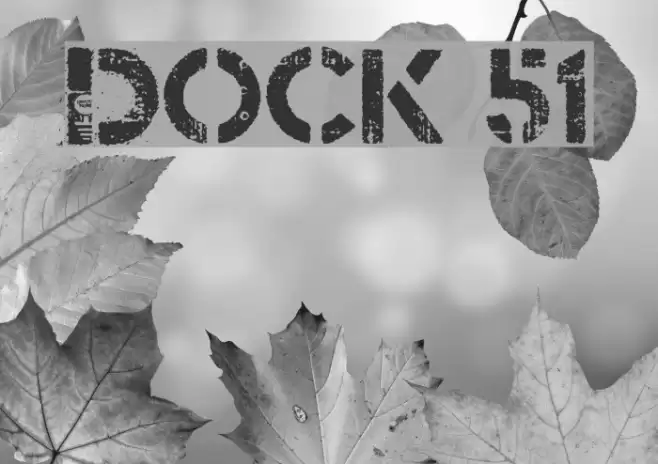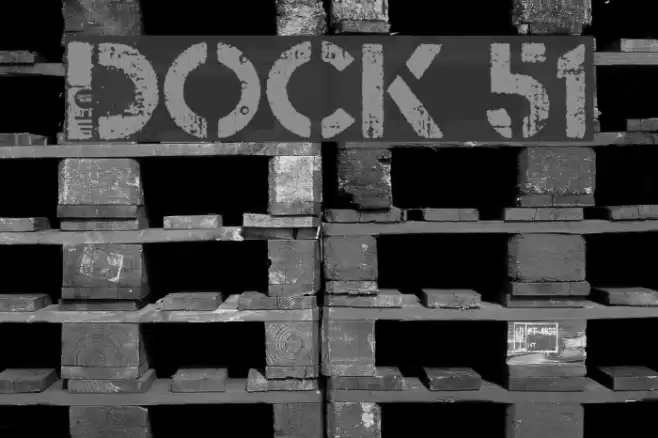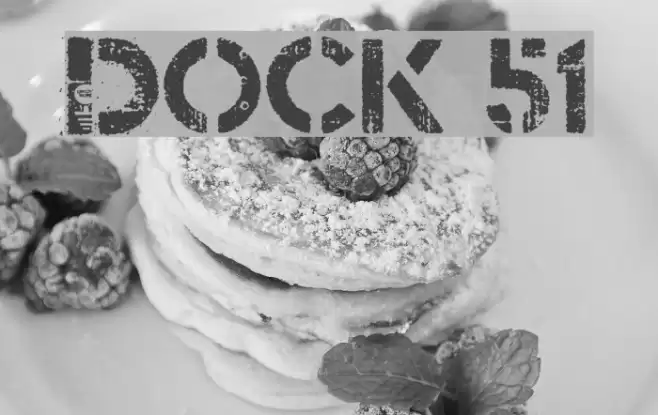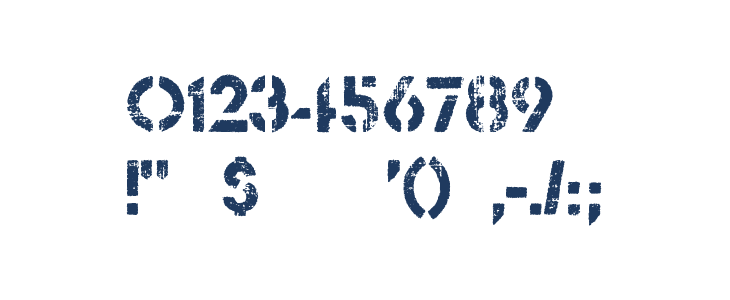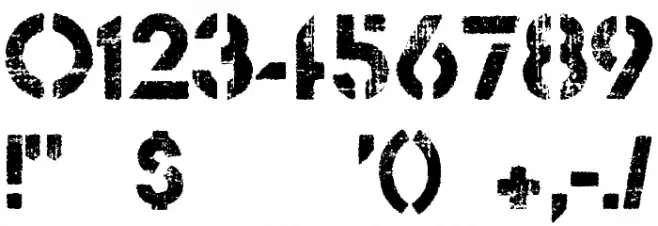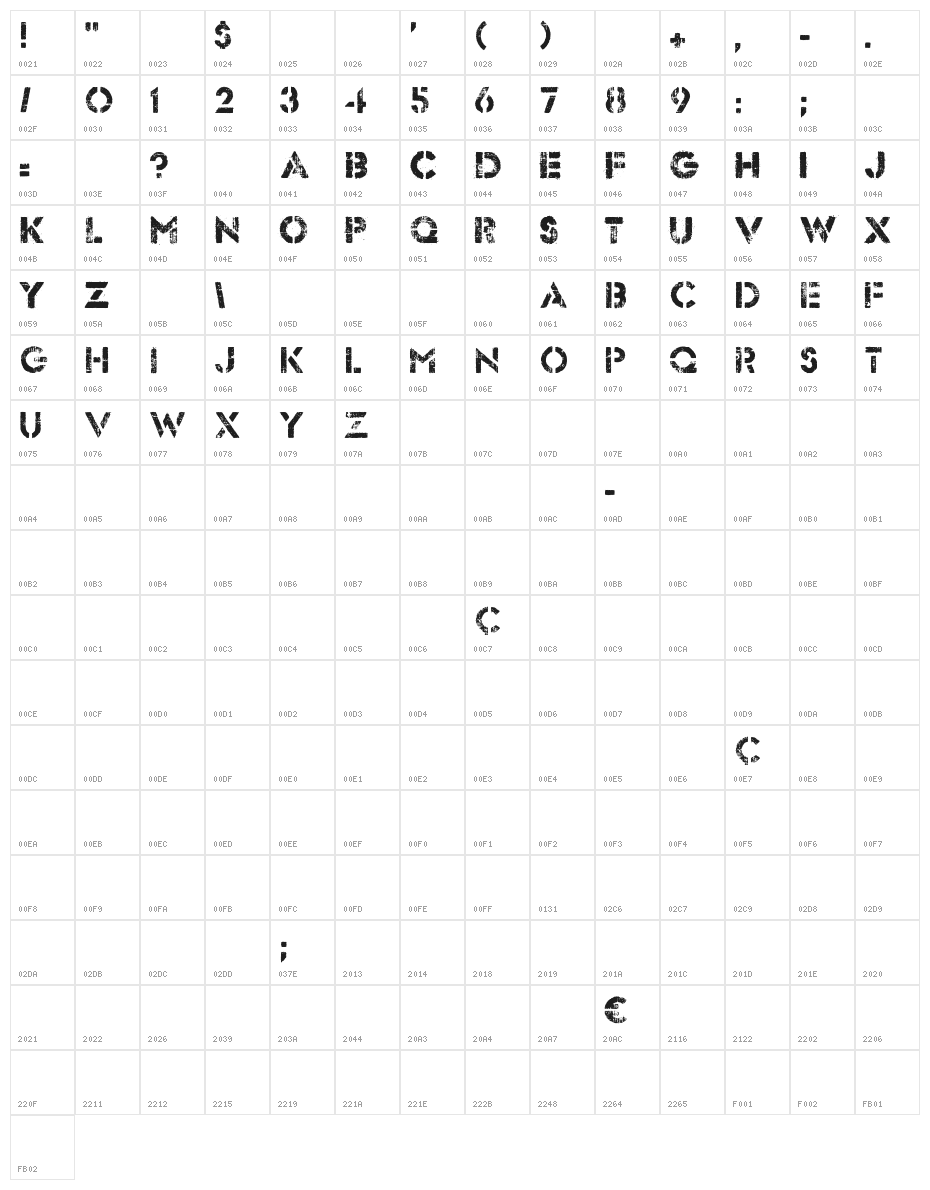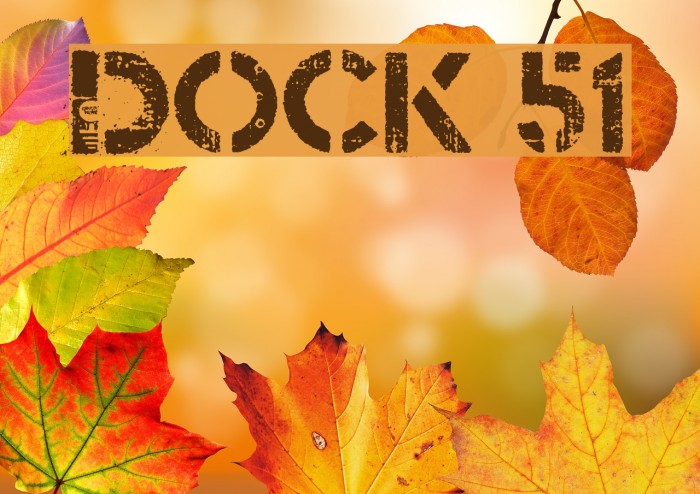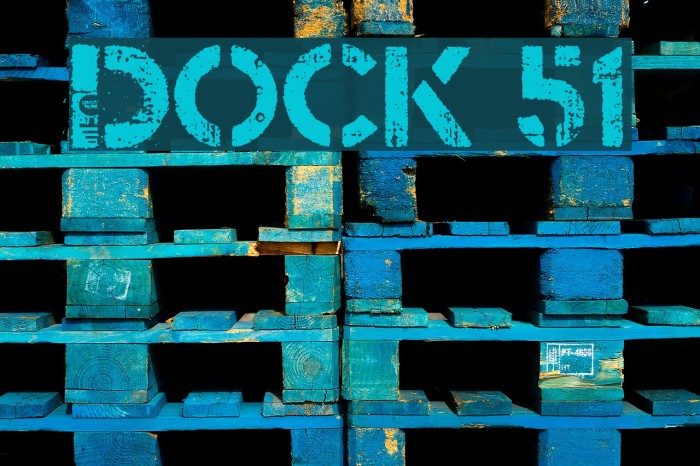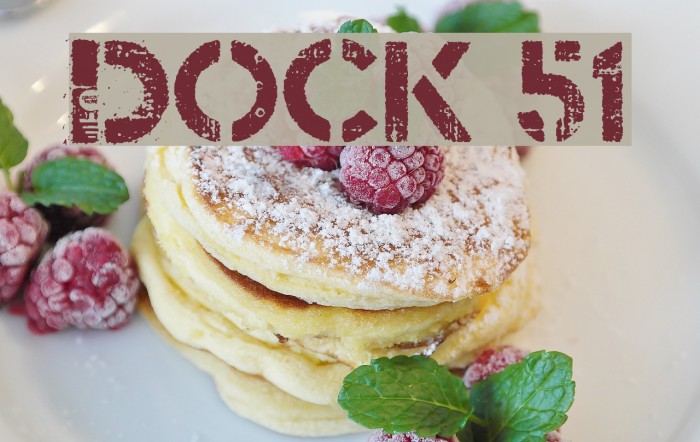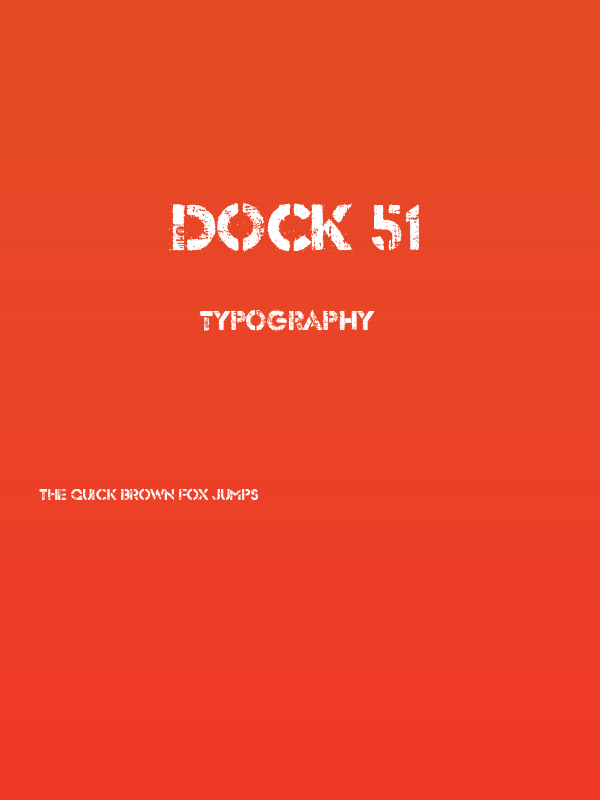
Dock 51 Font
Dock 51 Description
This font features a distressed, grunge style with a bold and impactful appearance. The characters are heavily textured, giving them a worn and rugged look, reminiscent of vintage or industrial aesthetics. The uppercase and lowercase letters maintain a consistent style, with sharp angles and geometric shapes. The numbers and special characters follow the same design, ensuring uniformity across all glyphs. This font's unique texture and bold presence make it stand out, perfect for creating eye-catching designs.
A bold, distressed font with a grunge, industrial style from Uncategorized fonts.
- Proposed Projects: Ideal for posters, album covers, branding for edgy or vintage-themed products, and any design requiring a strong, textured appearance.
- Overall Style: Vintage, Industrial